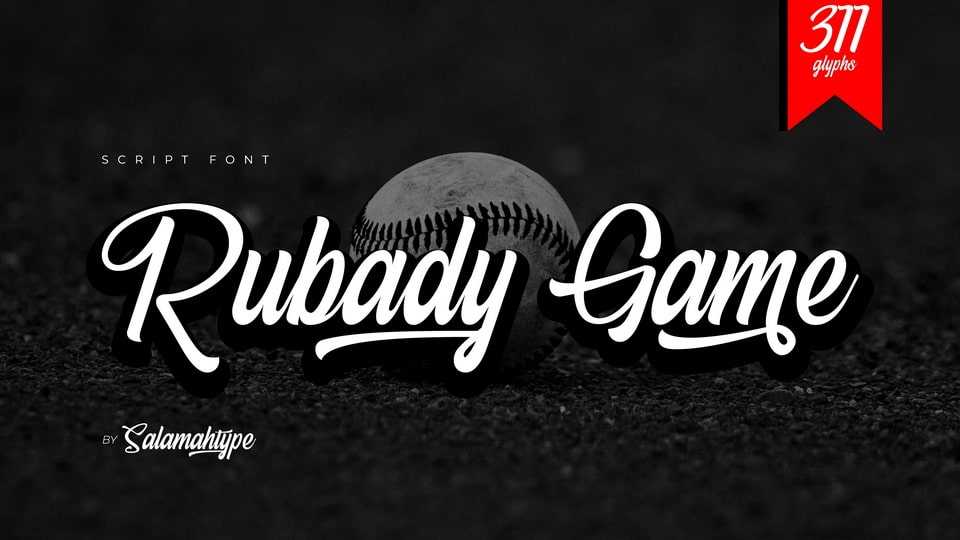
Download Rubady Game font, a script typeface with modern style. This font is perfect for logo, sports theme website/store, watermark, stationery, posters, flyers.